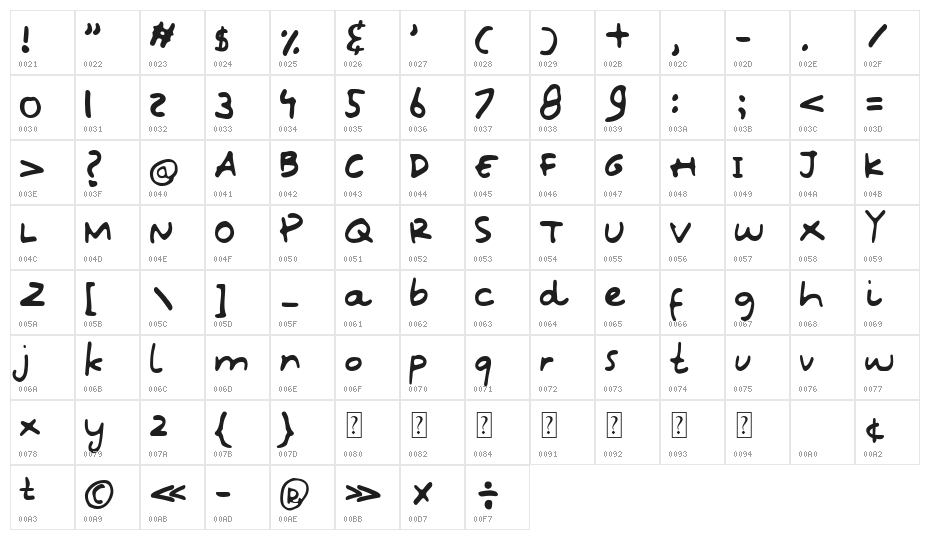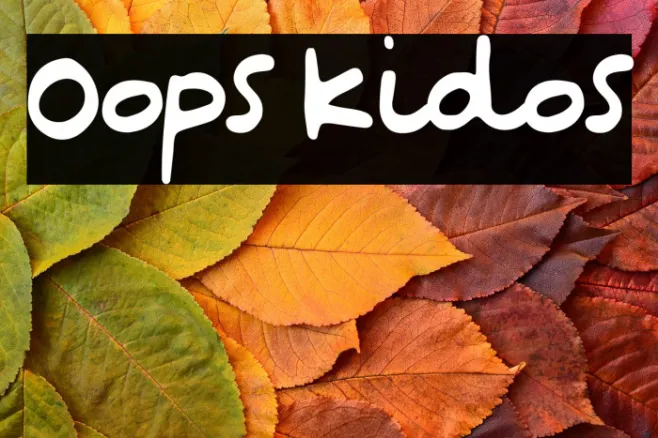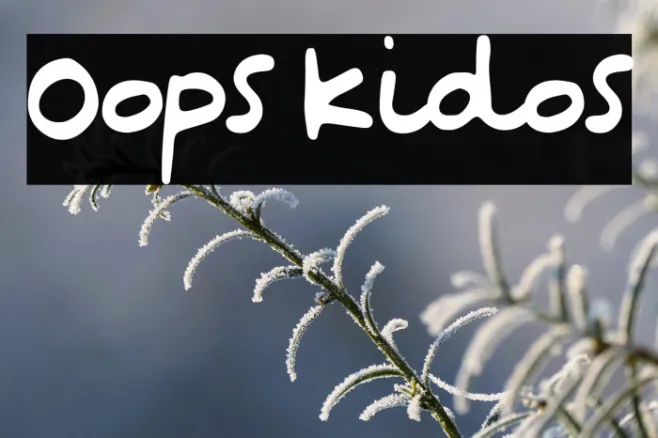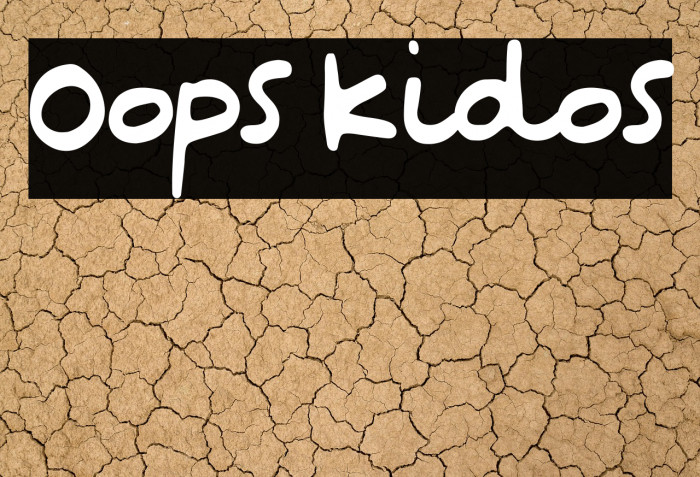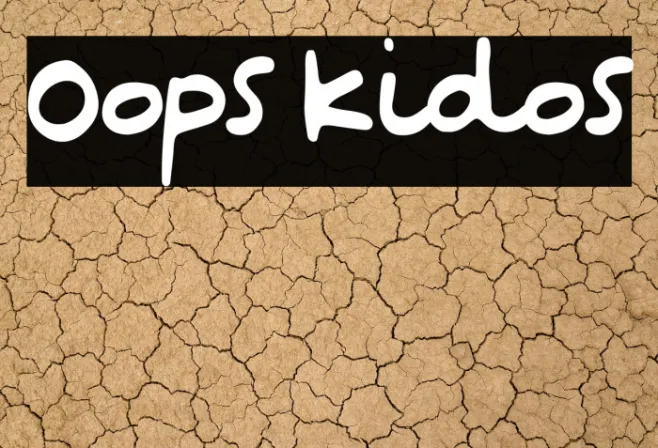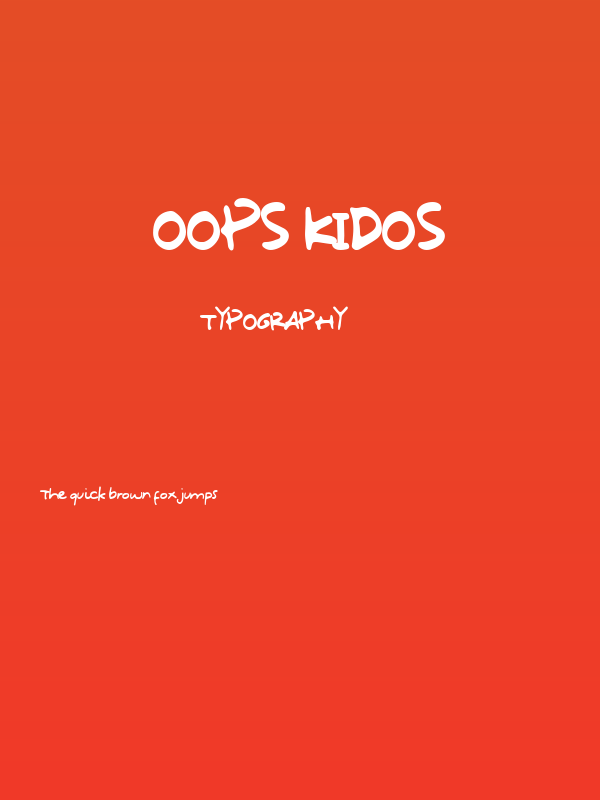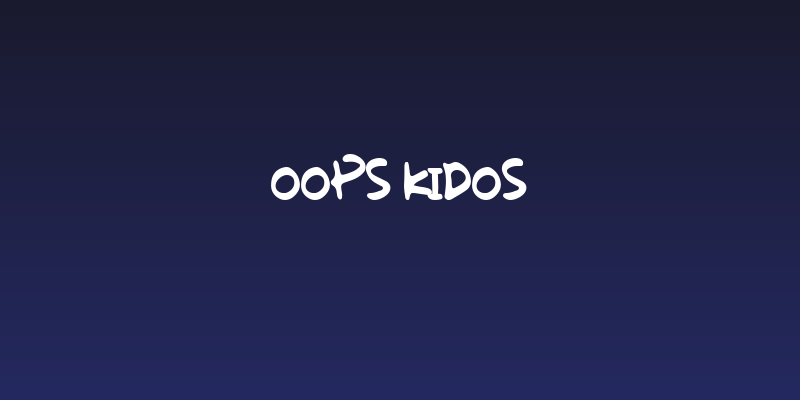
Oops Kidos Font
Oops Kidos Description
This playful and bold font features a handwritten style with thick, rounded strokes that give it a friendly and approachable appearance. The characters are slightly irregular, adding a whimsical touch that makes it stand out. The uppercase and lowercase letters maintain a consistent style, with the lowercase being slightly smaller and more compact. Numbers and special characters are designed with the same playful aesthetic, ensuring a cohesive look across all text. The font's thick strokes and rounded edges make it highly legible, even at smaller sizes, while its unique style adds personality to any design.
| Proposed Projects | Ideal for children's books, playful branding, casual invitations, and creative posters. |